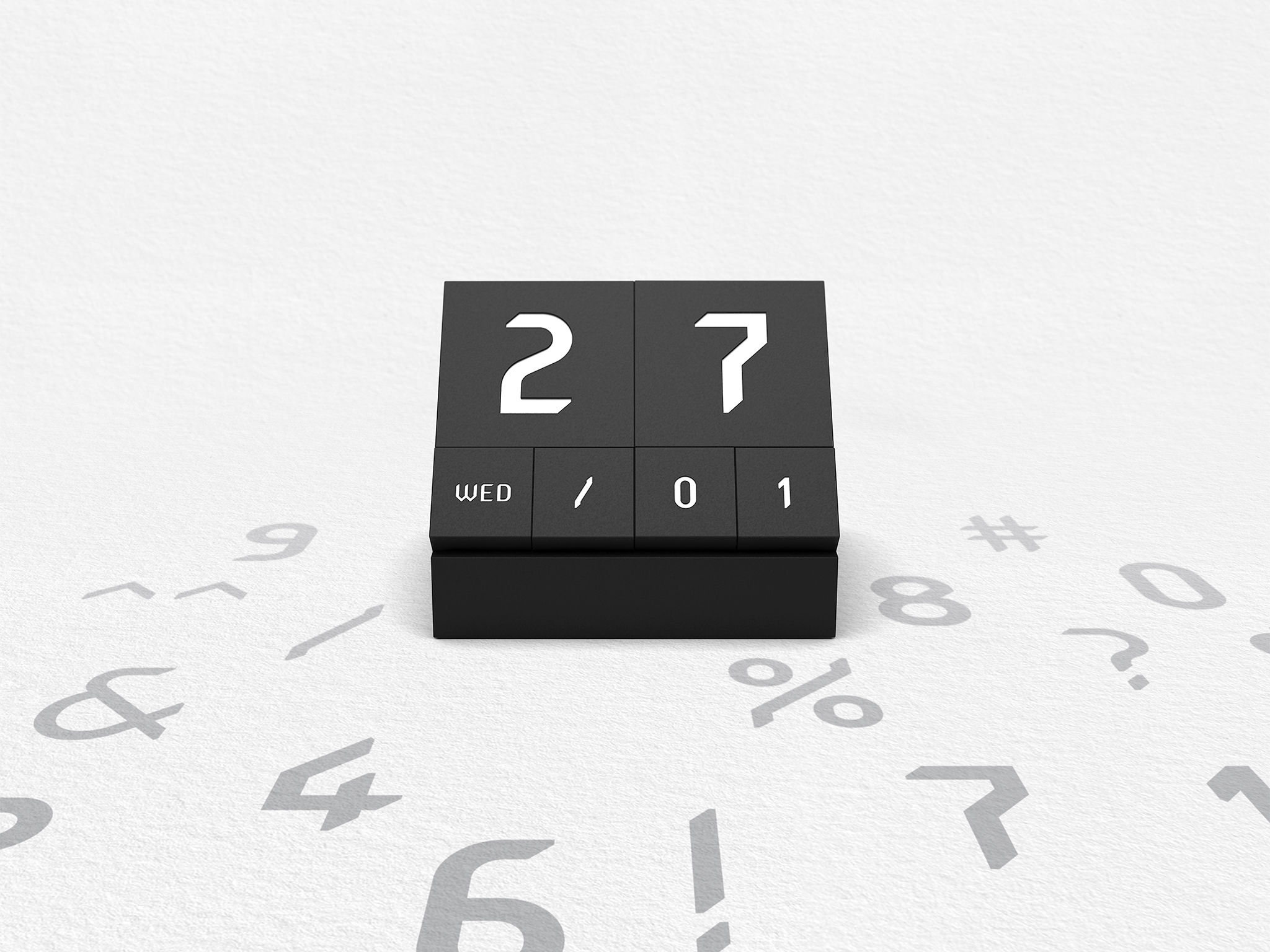
TIST +EDGE Typeface
Typeface
TISTTIST +EDGE Typeface is a corporate typeface of TIST, the brand coordination company. The new font is a family typeface based on the edges of the logo by adding a curve and improving the readability. By applying the end of stroke which is cut by the edge split at the quarter point, the 45° angle lends dynamism and harmonious geometric forms, thus the typeface completes the visual connectivity and the understated beauty of the brand. TIST +EDGE Typeface reflects the corporate philosophy to add value with the hidden charm of the edge, while being faithful to the basics, and strengthens the brand value of future enterprise at the same time.